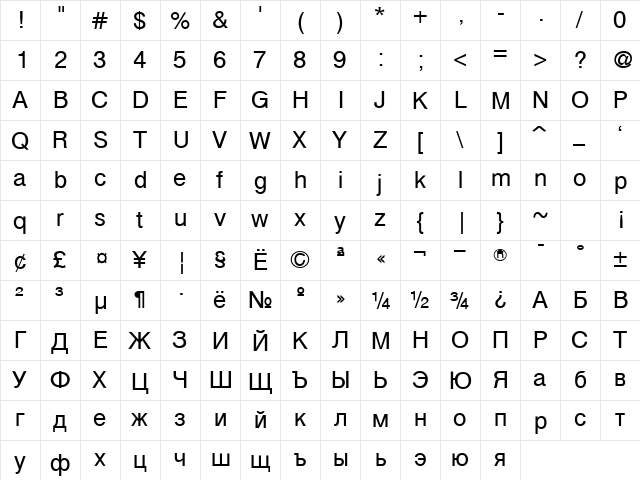
Cyrvetica Normal
Design Context for Cyrvetica Typeface
Cyrvetica is a composed and adaptable typeface that performs quietly and consistently across a wide range of design contexts.